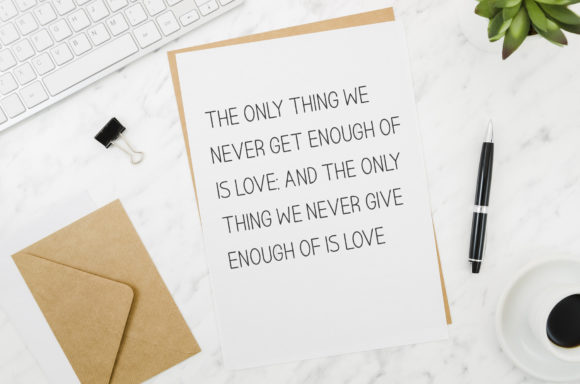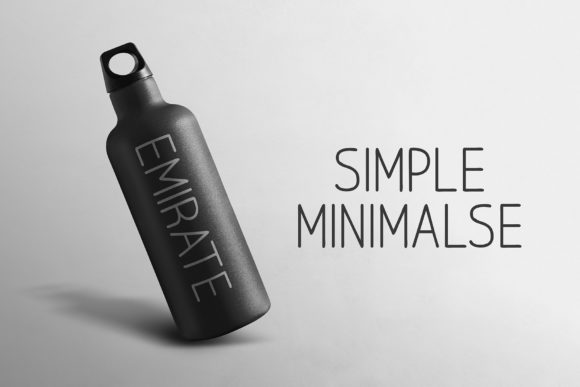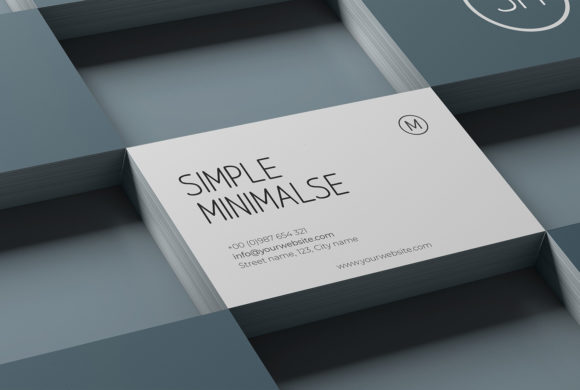
Introduction to Simple Minimalse Font
Simple Minimalse concentrates elegance into one truly outstanding sans serif font.
It maintains its classy calligraphic influences while feeling contemporary and fresh .
Key Features of Simple Minimalse Font
Why Choose Simple Minimalse Font?